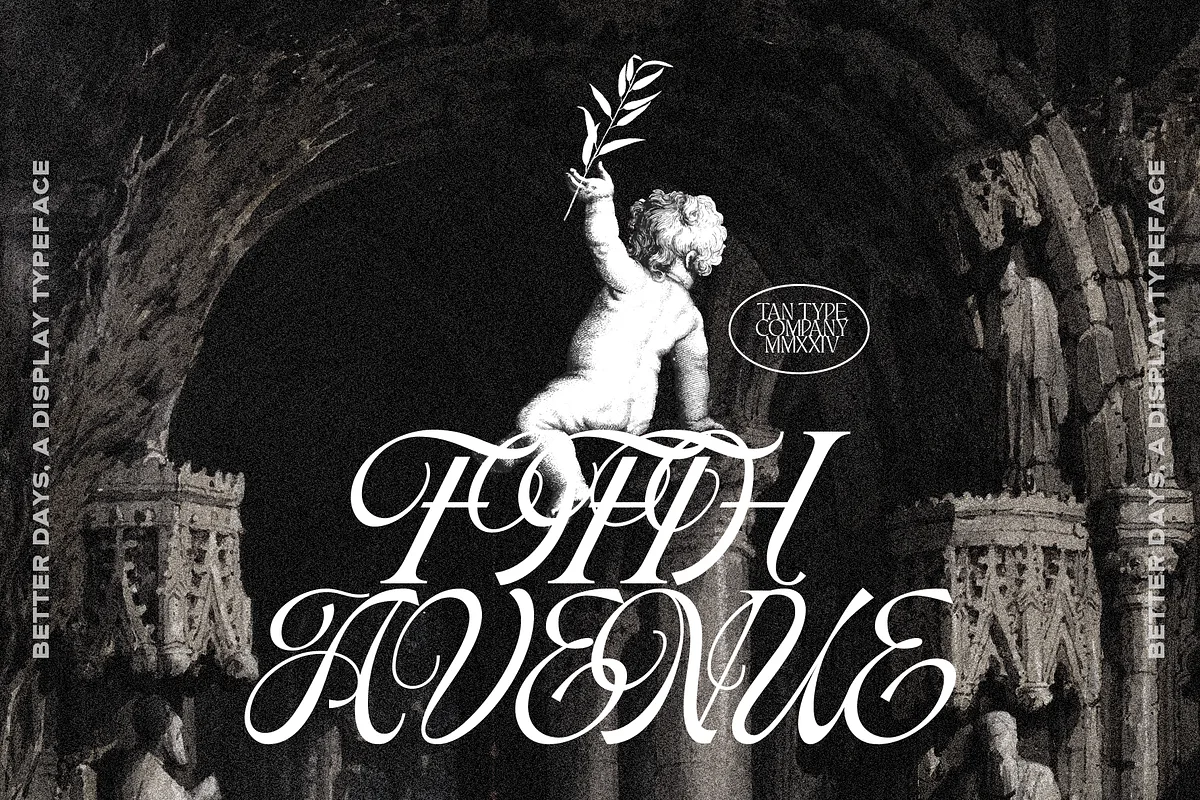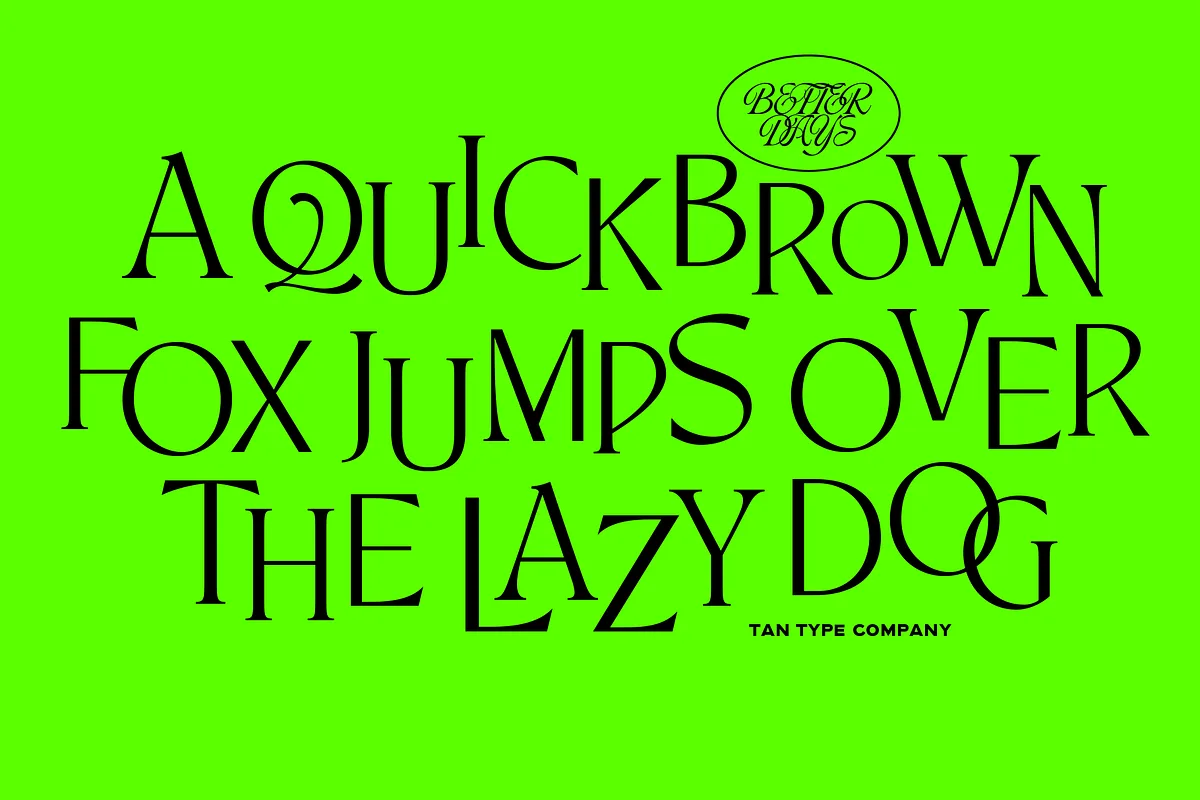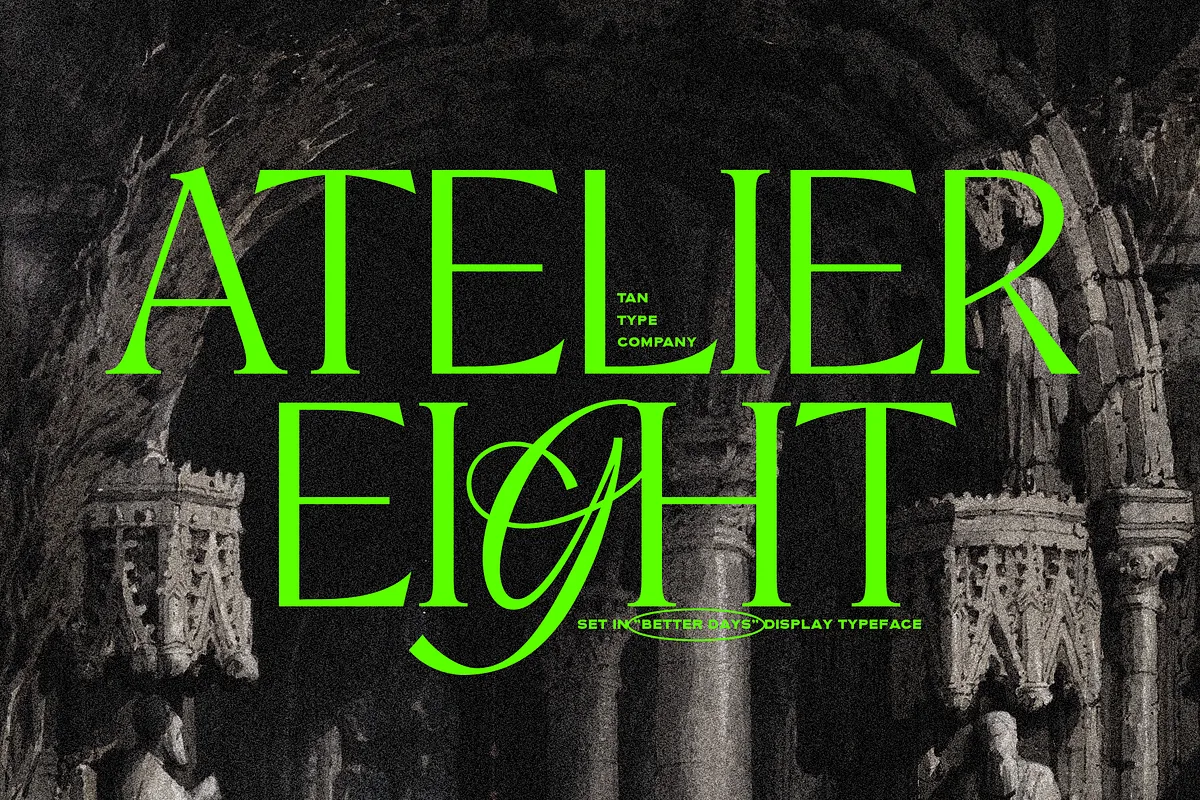
Tan Better Days is a script display serif font. Intended to be used for fun and when you need something classic and quirky.
Tan Better Days Font – Display Serif